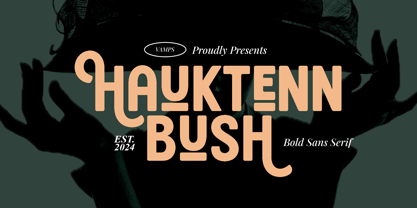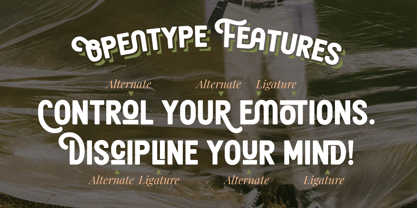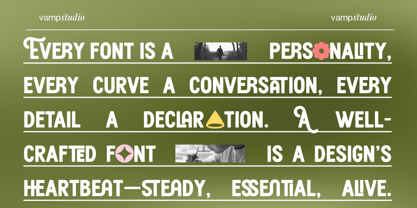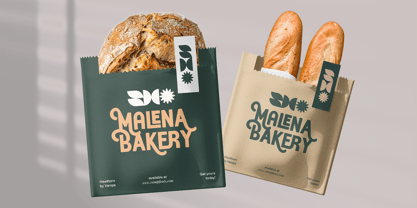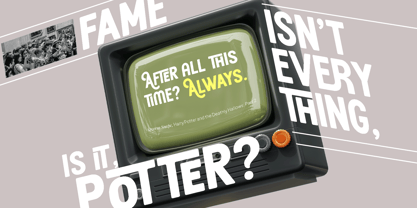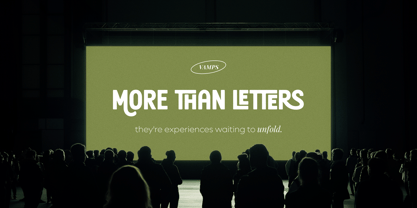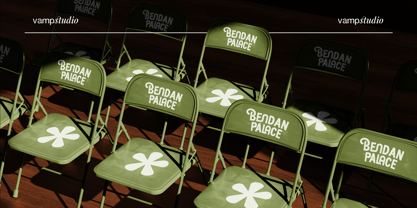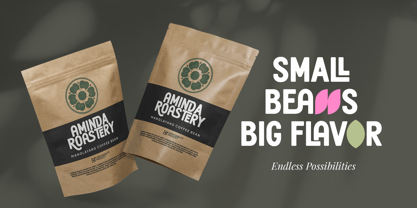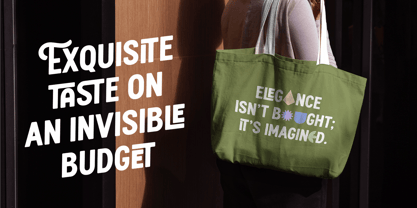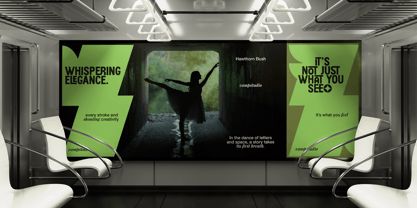
Haukteen Bush
by Vampstudio
The Haukteen Bush Font Family was designed by Irfan syah and published by Vampstudio. Haukteen Bush contains 1 styles. More about this family
Haukteen Bush is bold, playful, and unapologetically expressive. Designed for creators who don’t shy away from attention, this font dances between retro nostalgia and contemporary sass. With its chunky curves, distinctive flourishes, and dynamic alternates, Hawthorn Bush is ideal for branding, youth culture branding, pop statements, and loud typographic.
Designers: Irfan syah
Foundry: Vampstudio